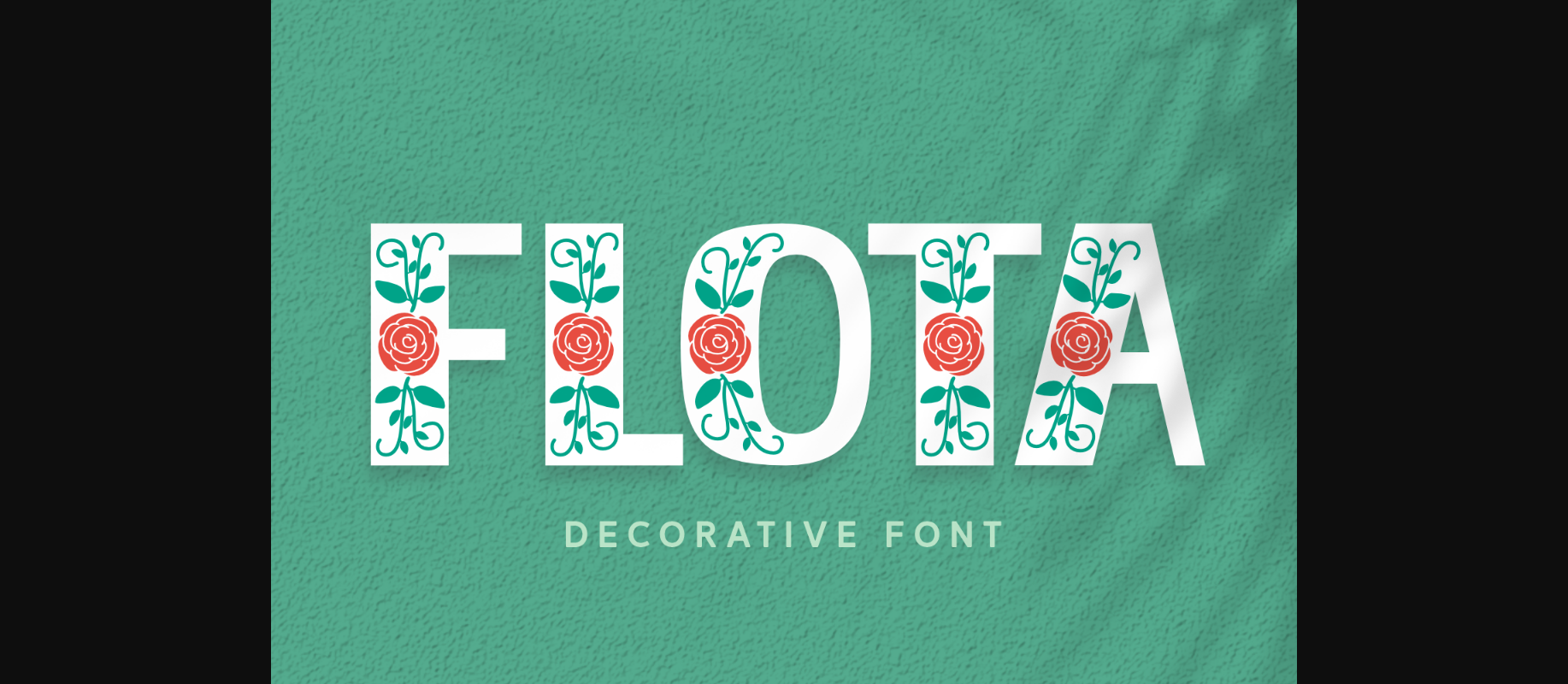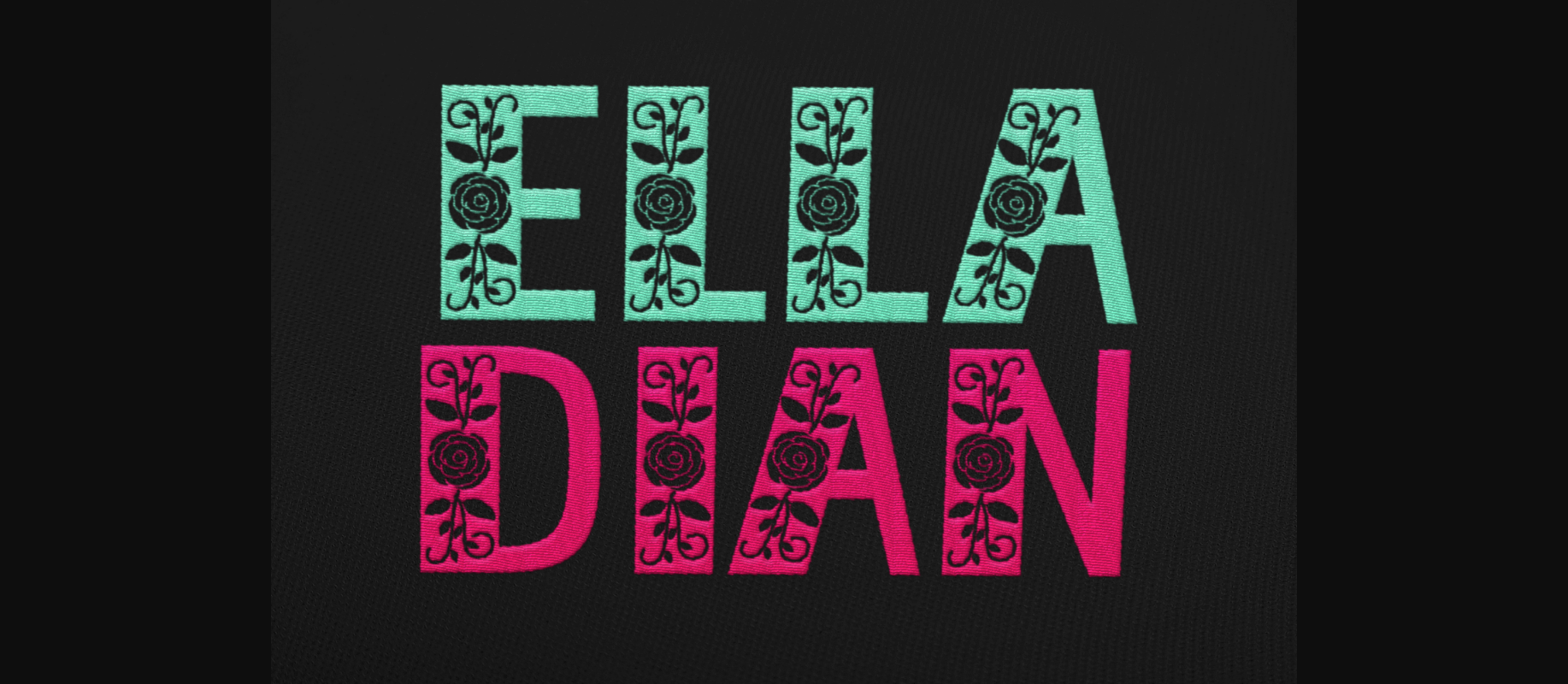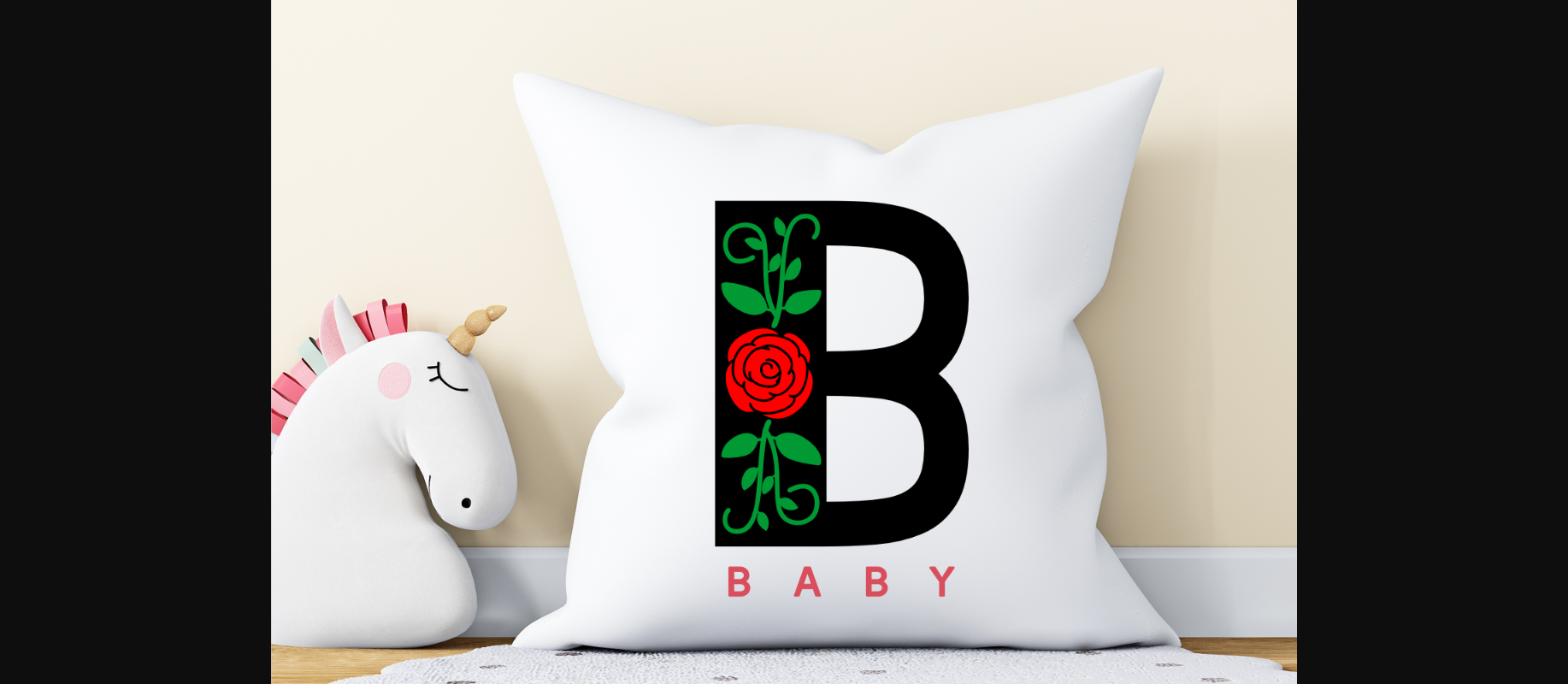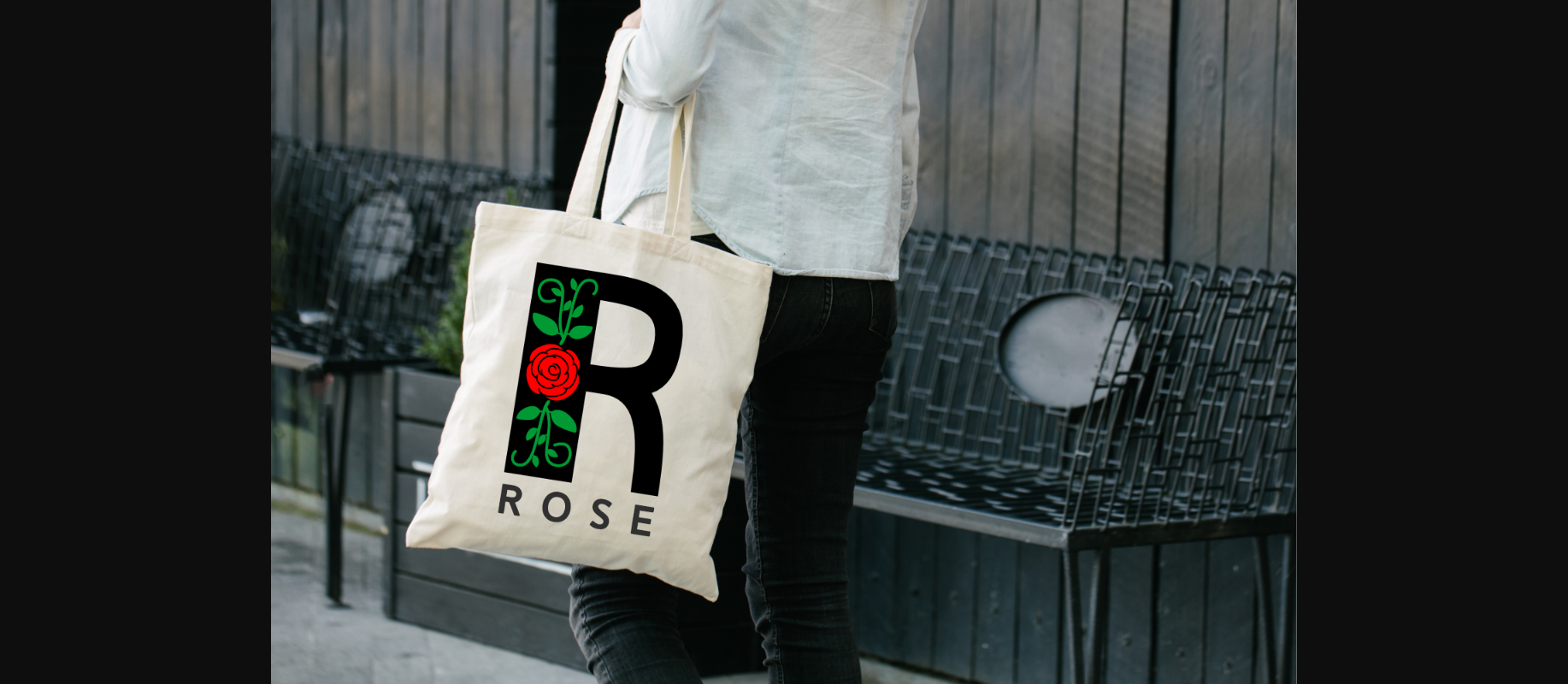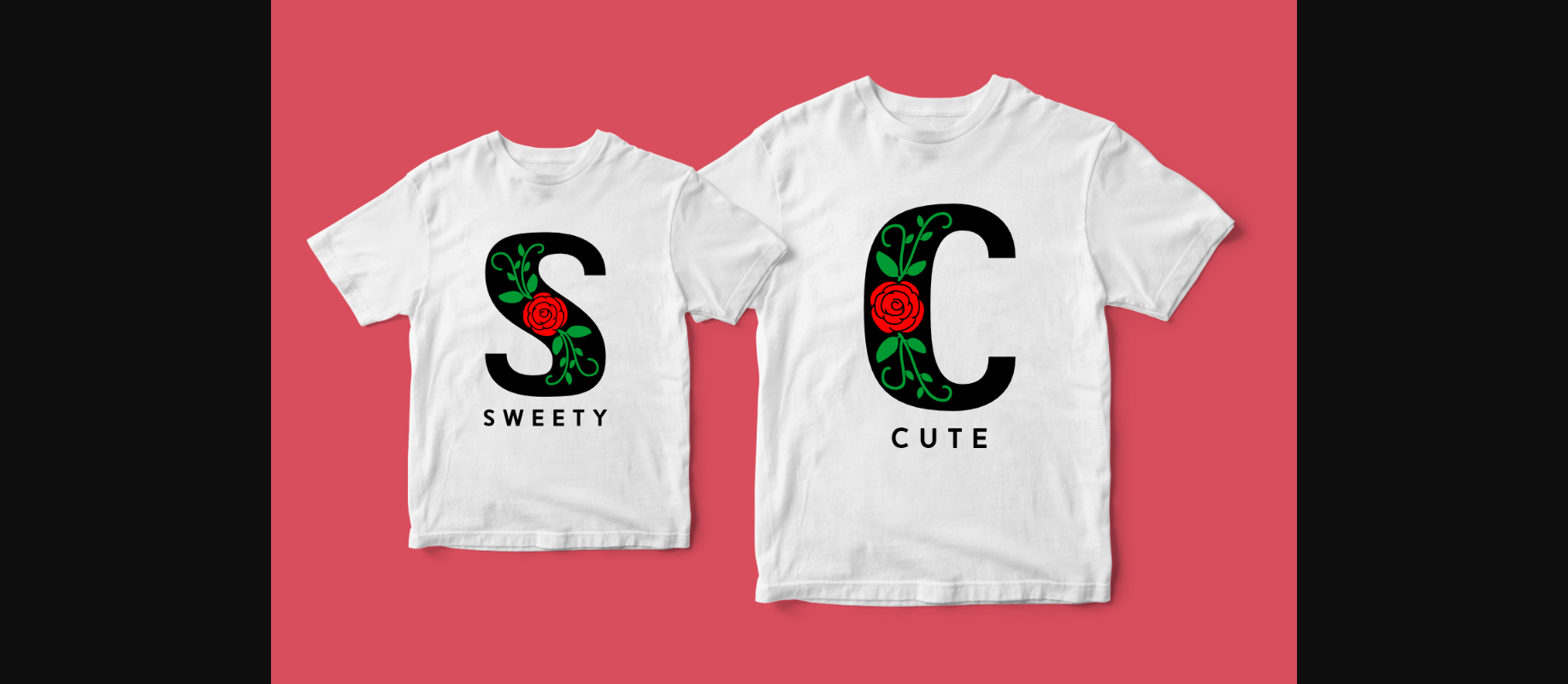
About Flota Font
Flota is a unique decorative font inspired by nature and flowers. This lovely typeface includes roses details inside its character set. It’s s the perfect match for embroidery projects, monogram designs, art prints, pillowcases, t-shirts, spring cards, and others.